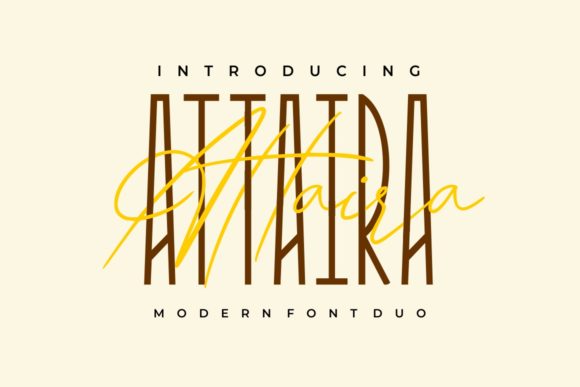
The Ultimate Font Pair: Attaira Duo
As a designer, I’ve had my fair share of frustrating moments when searching for the perfect font pair. I recall working on a wedding invitation project, spending hours scrolling through font combinations that just didn’t feel right. The script font was too elegant, while the sans serif font was too plain. That’s when I stumbled upon Attaira Duo, a game-changing font pair that has since become a staple in my design toolkit.
• ✨ Perfectly paired script and sans serif fonts: Attaira Duo’s combination is a match made in heaven, offering a beautiful contrast that’s perfect for creating visual interest.
• ✅ High versatility: This font pair is suitable for a wide range of design projects, from signatures and weddings to social media, stationery, logos, and more.
• 💫 Elegant and sophisticated: Attaira’s script font exudes elegance, while its sans serif font provides a clean and modern contrast.
While Attaira Duo is an excellent font pair, there are a few minor quirks to be aware of:
• ⚠️ Limited use of uppercase letters: The script font is designed primarily for lowercase letters, which might limit its use in certain design projects.
• 🤔 Glyph compatibility: Some glyphs might not work seamlessly across different platforms or software, so it’s essential to test them before finalizing your design.
The Designer Inspiration Behind Attaira Duo
Attaira Duo was designed with the goal of creating a versatile font pair that could be used across various design projects. The designer aimed to craft a script font that exudes elegance and sophistication, while its sans serif counterpart provides a clean and modern contrast. The result is a font pair that’s perfect for designers, crafters, and creative hobbyists who want to elevate their designs.
Q: What type of designs is Attaira Duo best suited for?
A: Attaira Duo is perfect for a wide range of design projects, including signatures, weddings, social media, stationery, logos, typography quotes, magazines, book covers, website headers, and more!